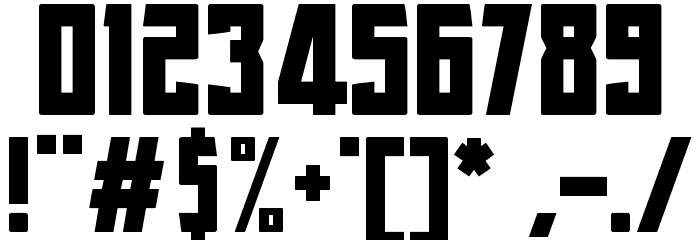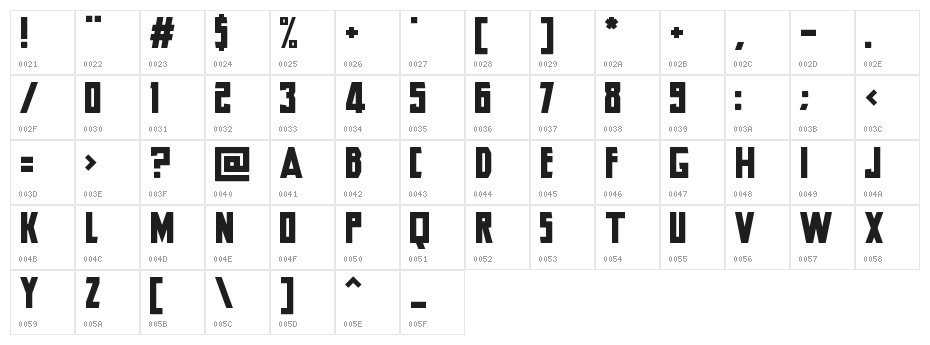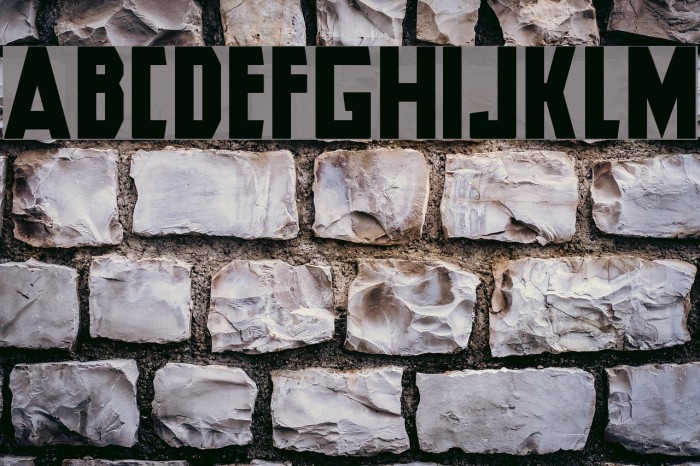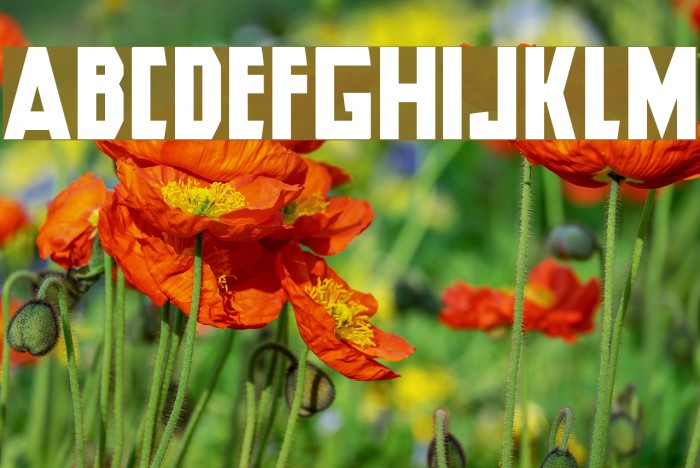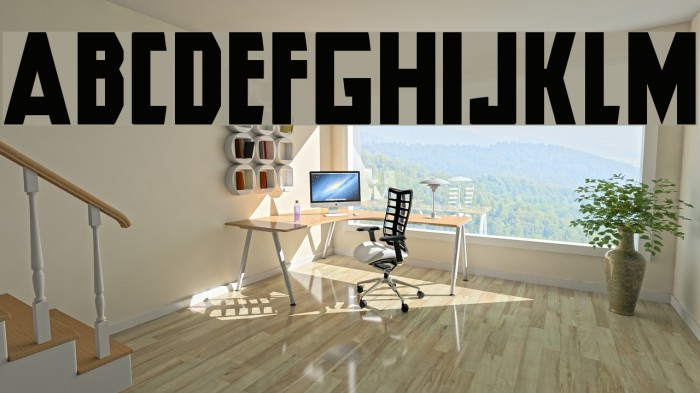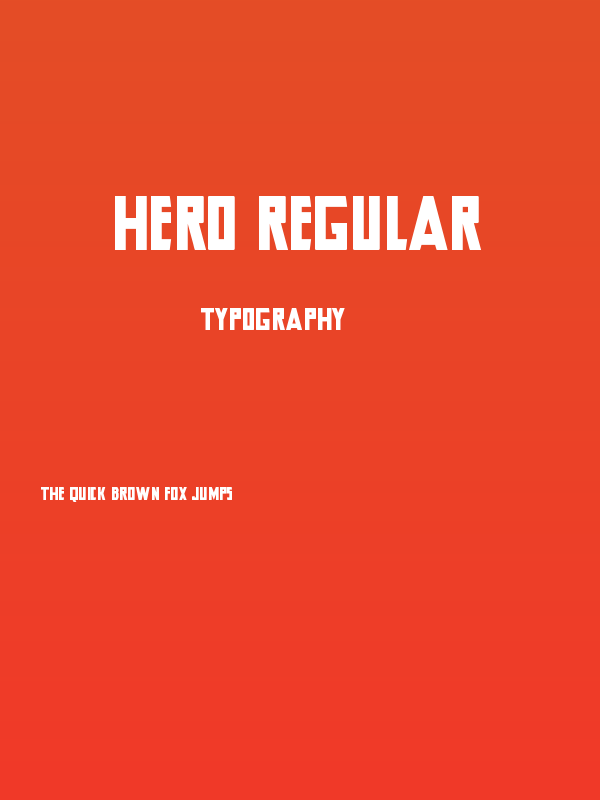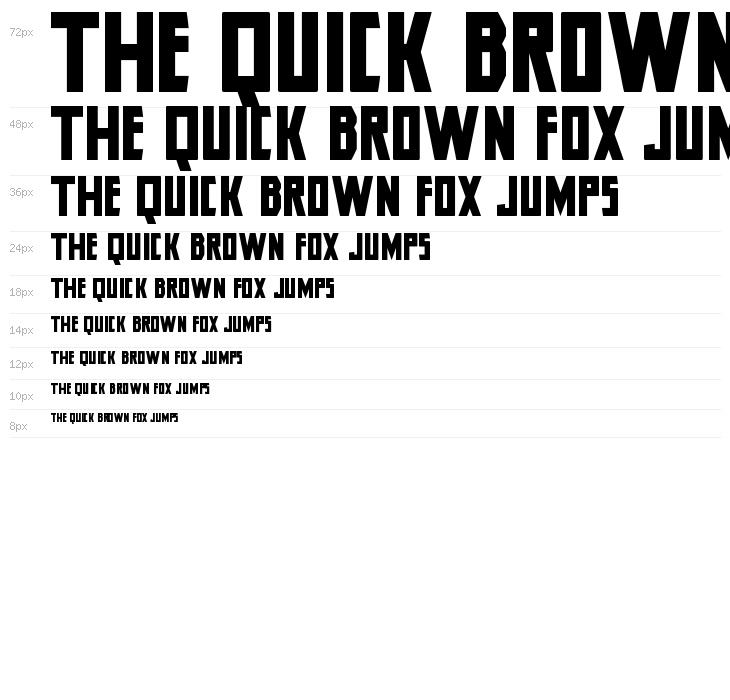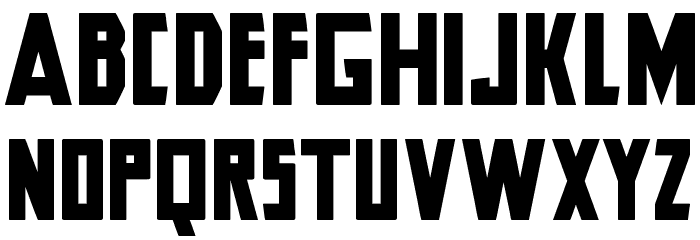
Hero Regular Font
This font features a bold and impactful design with strong geometric shapes and sharp angles. The uppercase letters are particularly striking, with a blocky and robust appearance that commands attention. The numerals and special characters maintain the same boldness, ensuring consistency across all characters. The overall style is modern and assertive, making it suitable for projects that require a strong visual presence. The font's design is clean and uncluttered, with a focus on clarity and readability, even at smaller sizes.
Proposed ProjectsIdeal for headlines, posters, branding, and any project needing a bold, impactful typeface.